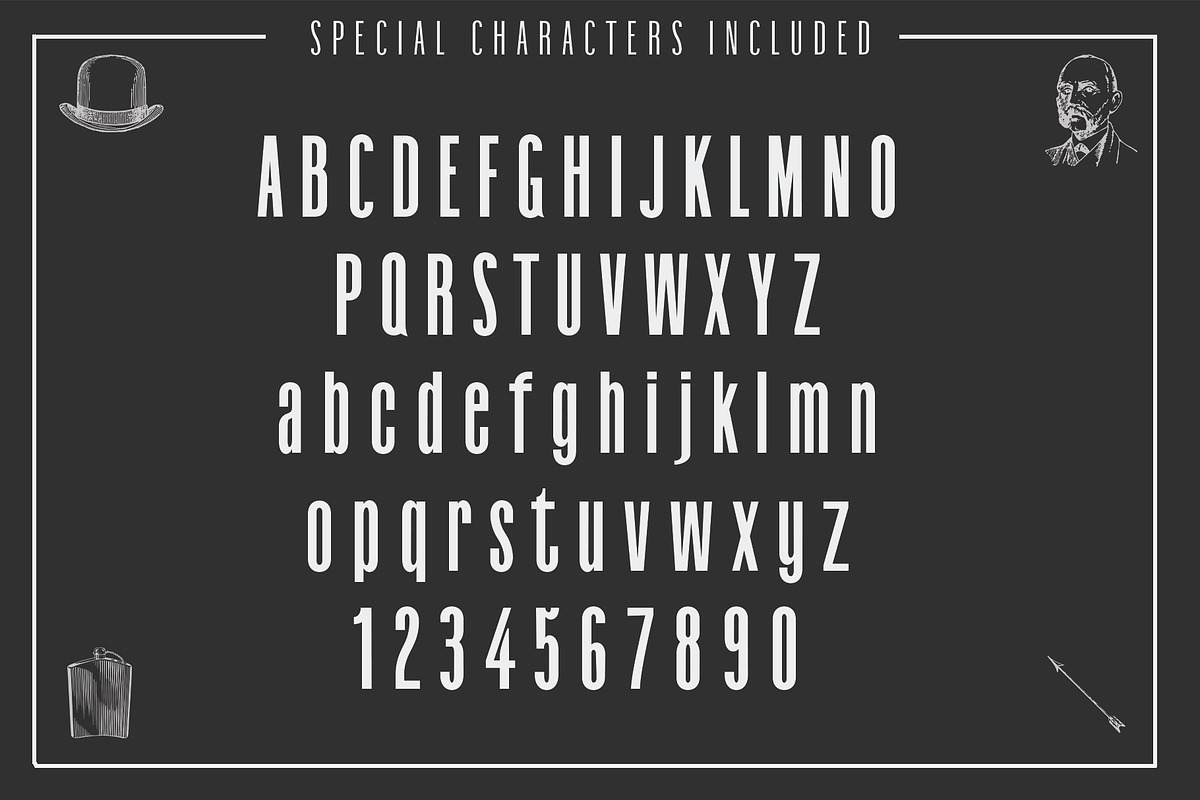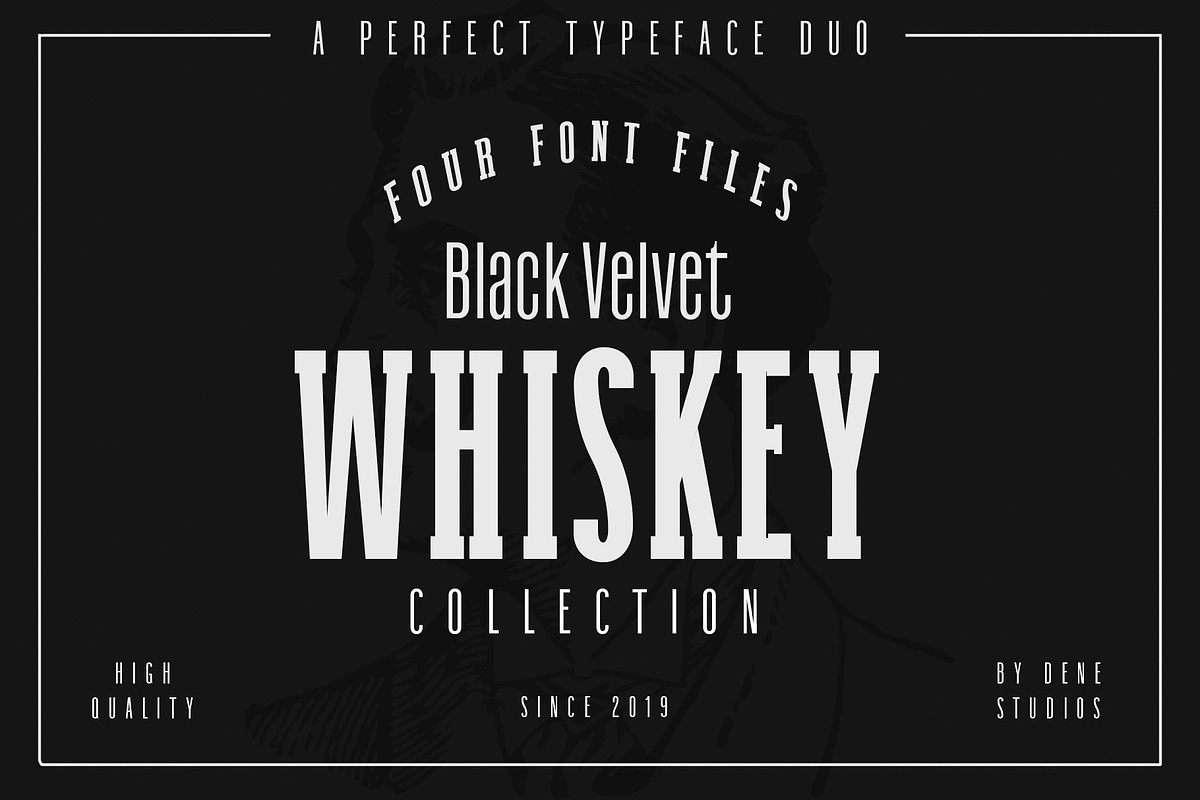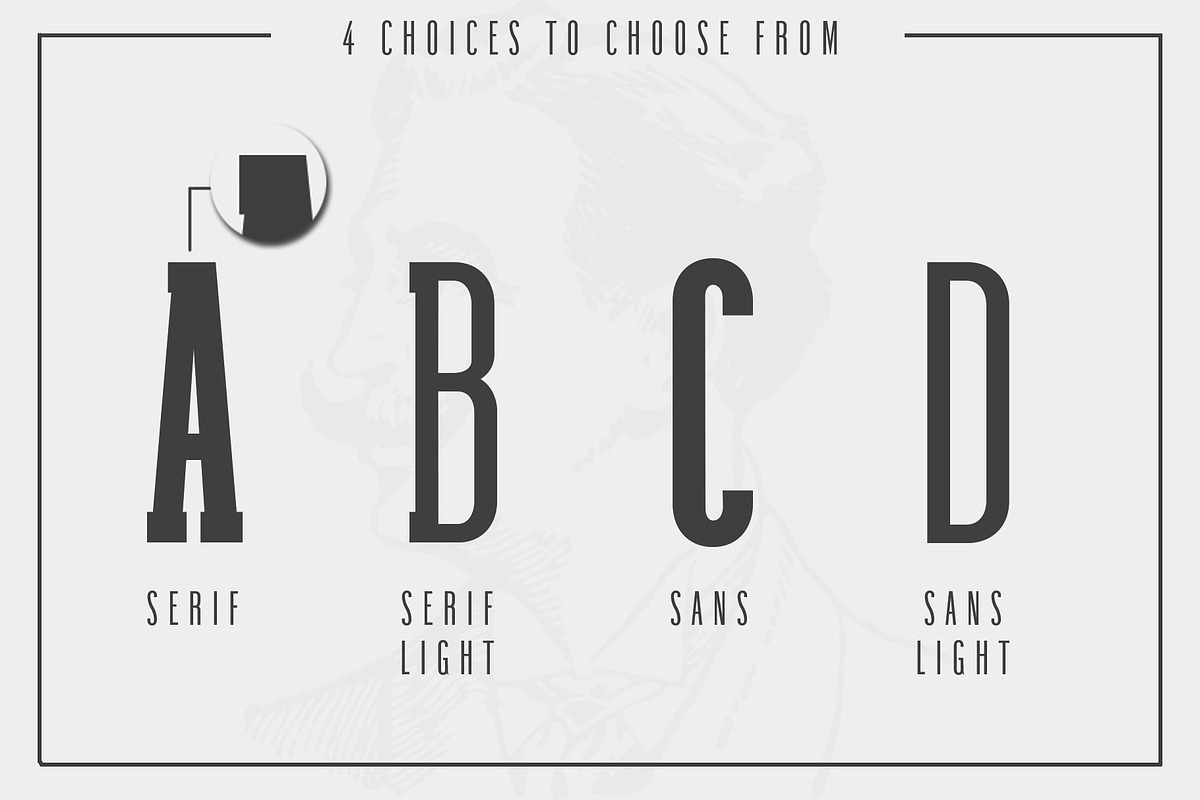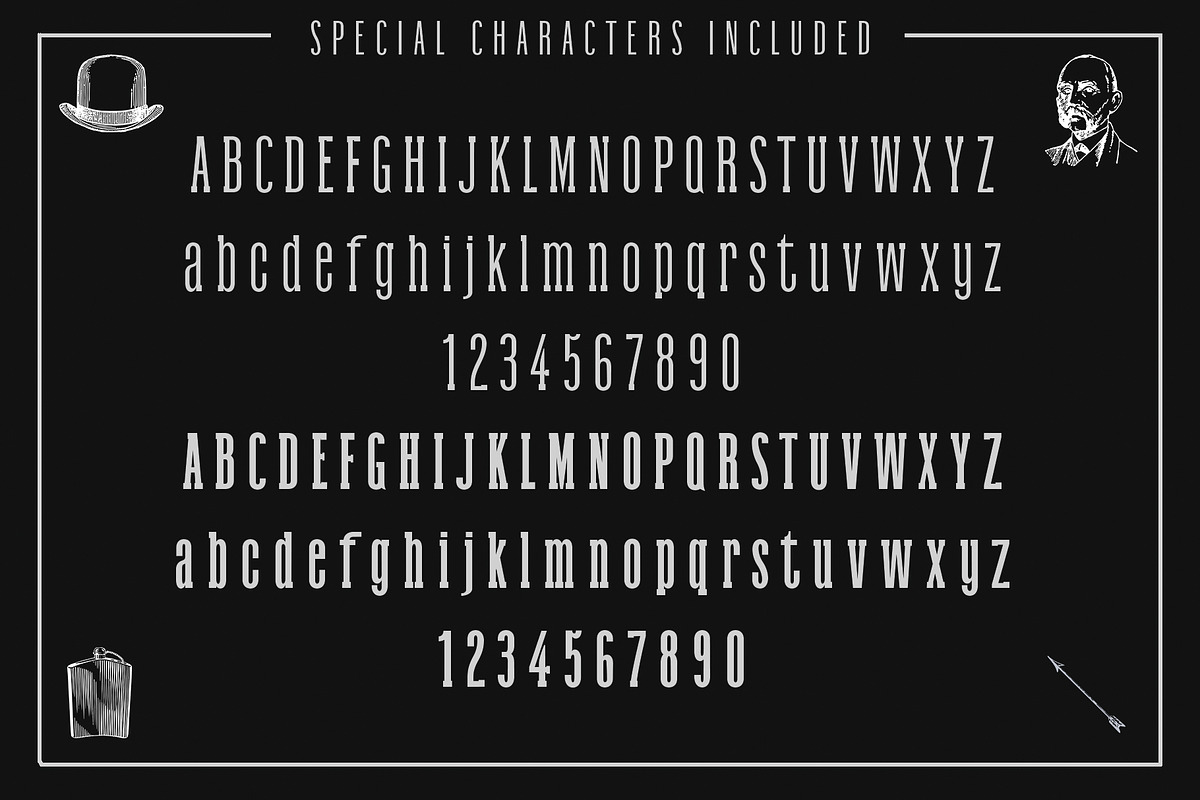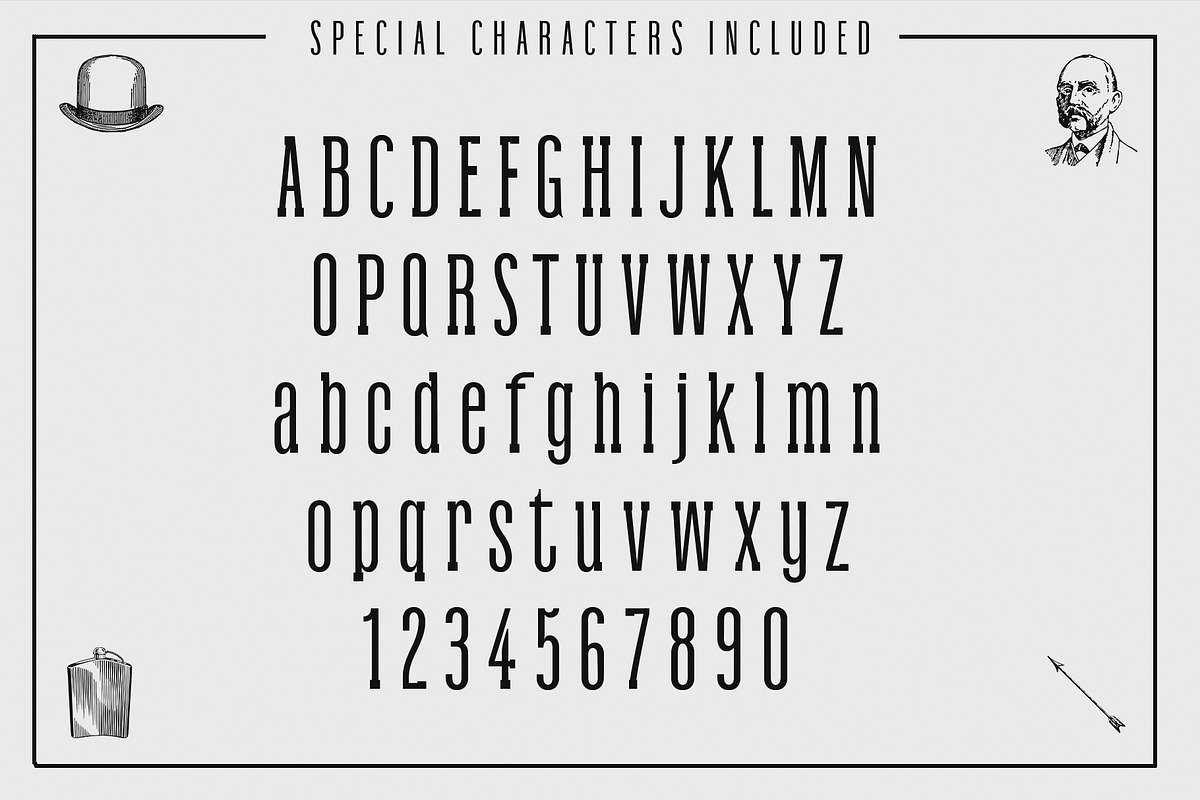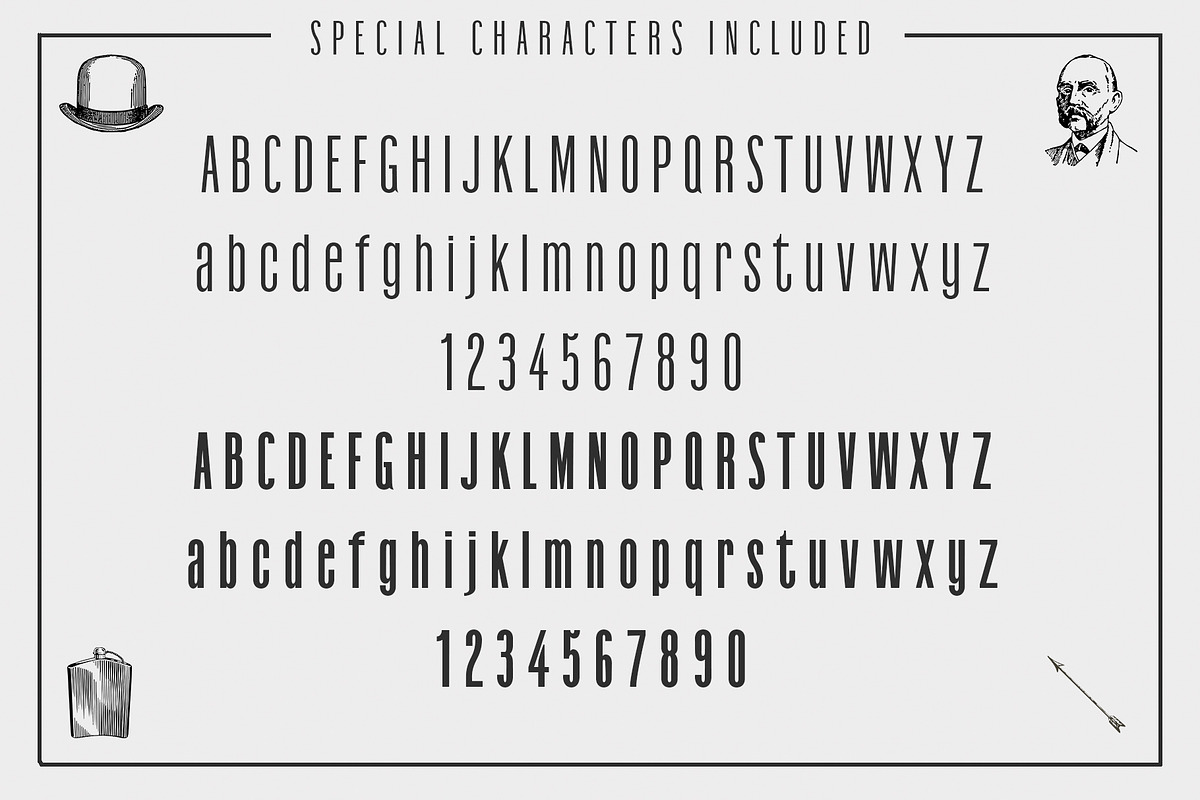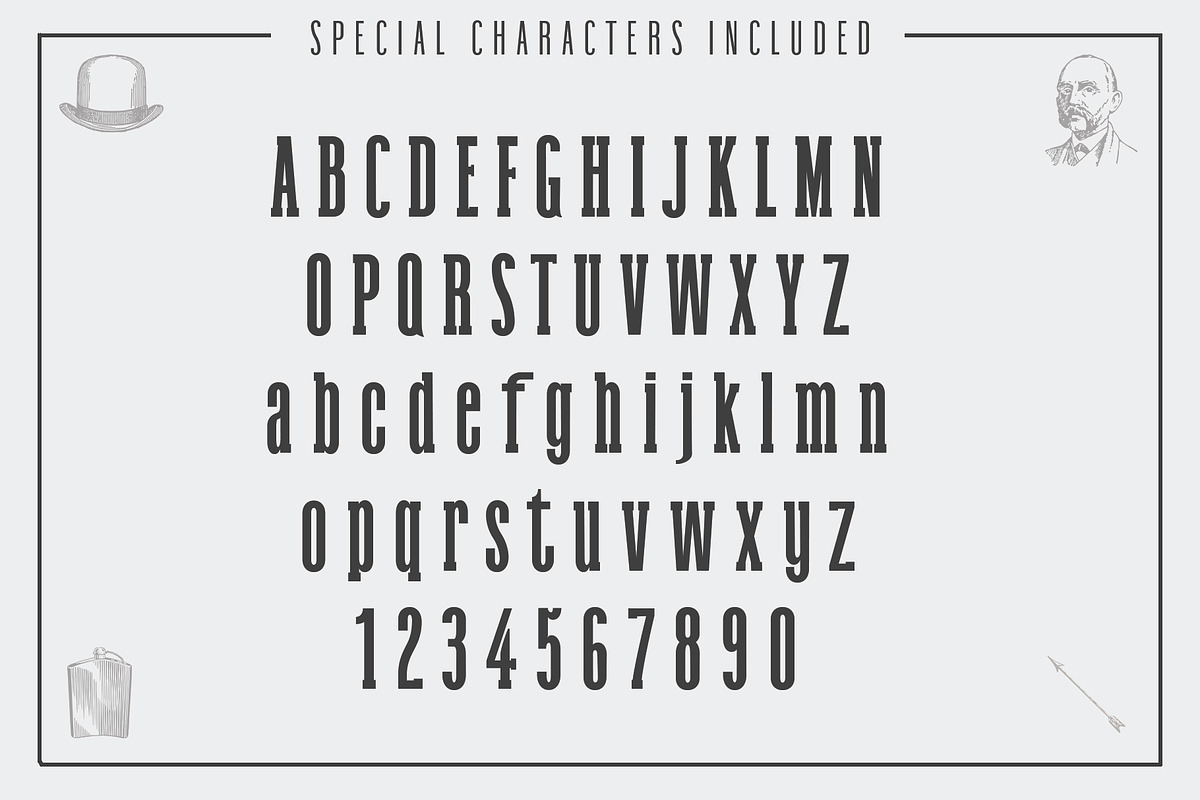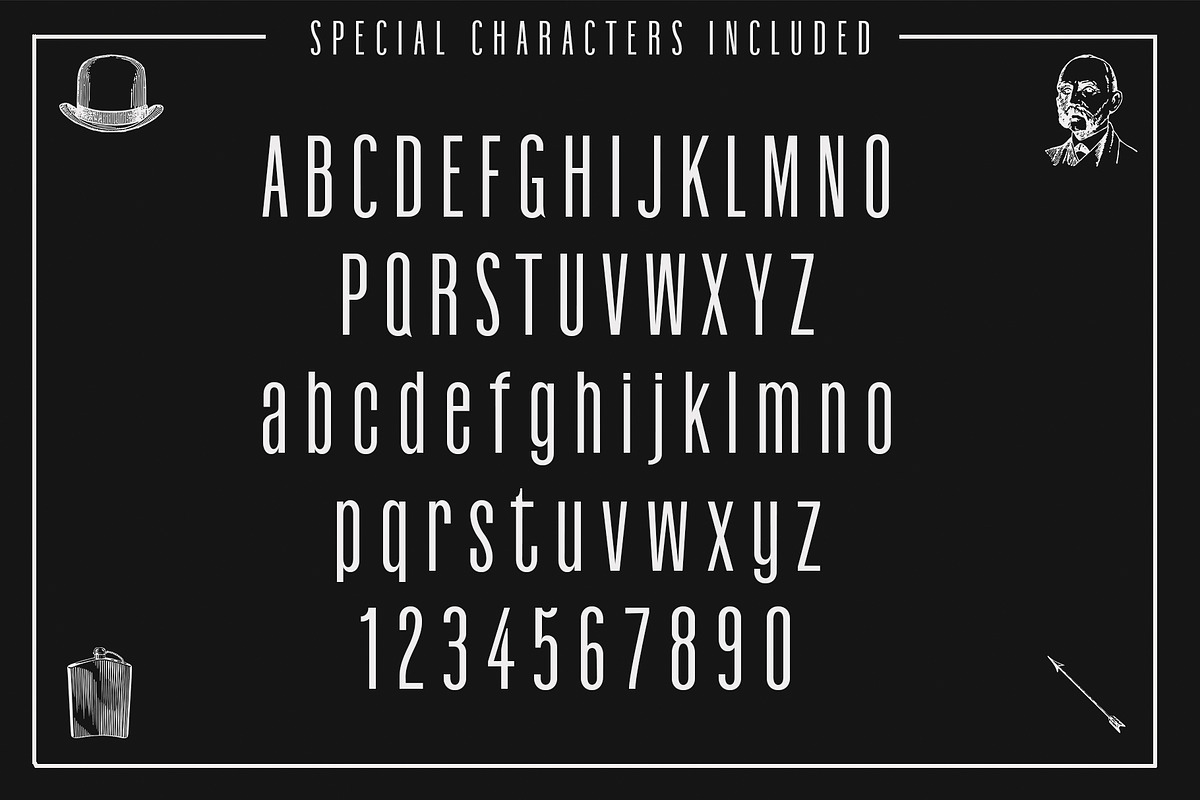
Black Velvet Typeface
These two typefaces are made for each other. They work together to give you that perfect combination for your latest project. Black Velvet is perfect for logos, signage, advertising, labels and more.
Why Black Velvet Typeface is worth a look
Black Velvet Typeface by Dene Studios fits naturally into Branding, posters, packaging, typography.